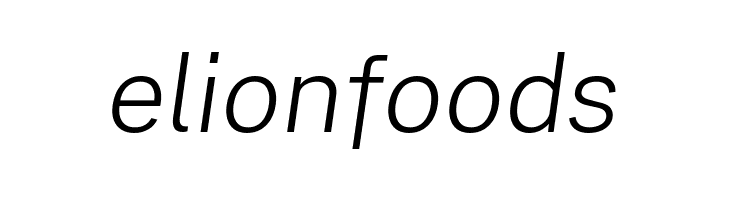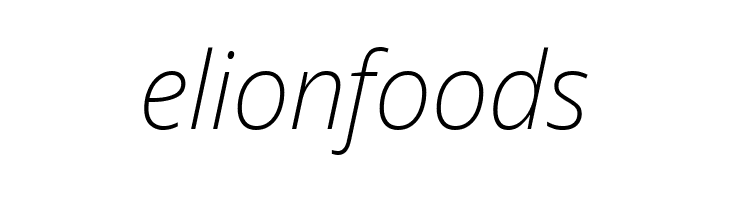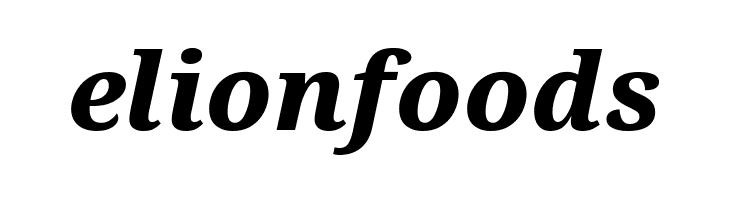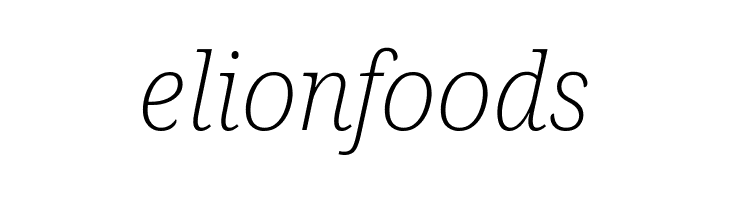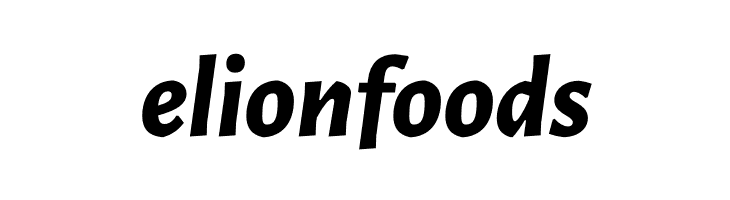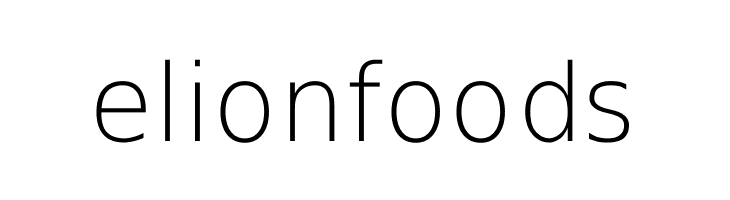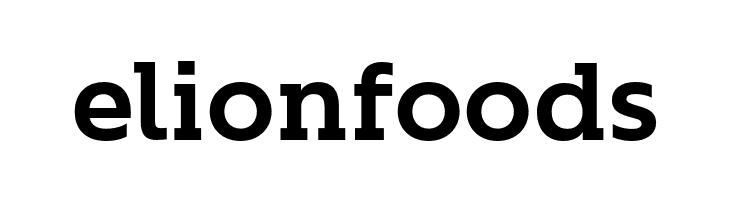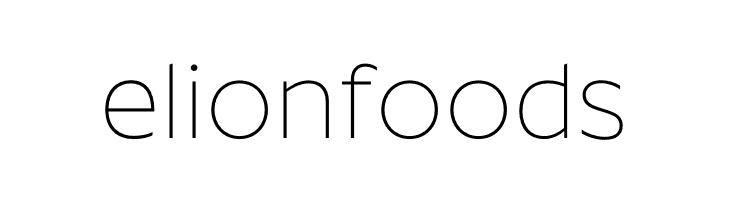
A modern, extra light sans-serif font with an elegant italic style.
A sleek, modern sans-serif font with an extra light, italic style.
A classic serif font with extra bold weight and italic style, perfect for impactful headlines.
An elegant, extra light serif font with an italic style.
A sleek, modern extra-light font with a minimalist design.
A sleek, extra-light italic font with a modern and elegant style.
A bold, italic font with high contrast and modern appeal.
A clean, minimalist sans-serif font with an extra-light weight and modern appeal.
A bold, geometric font with clean lines and a modern aesthetic.
A geometric, extra light font with rounded edges and a minimalist design.